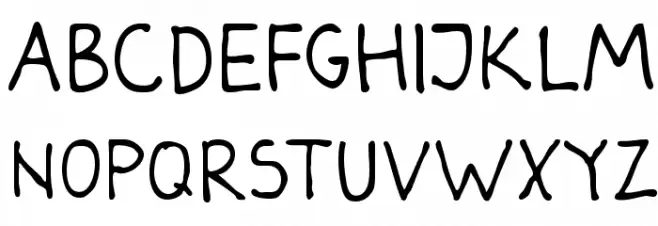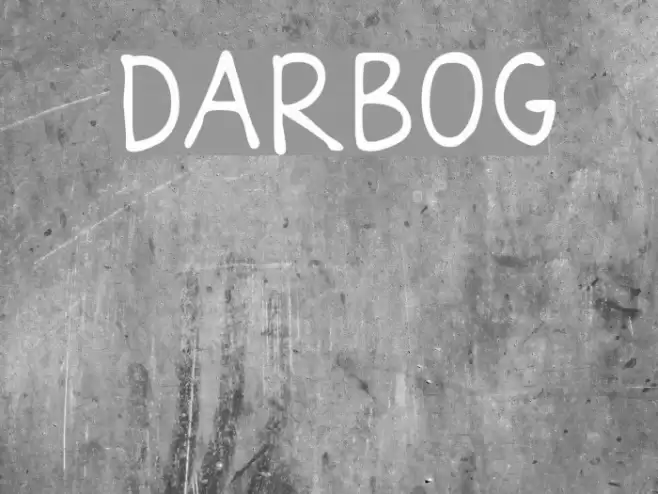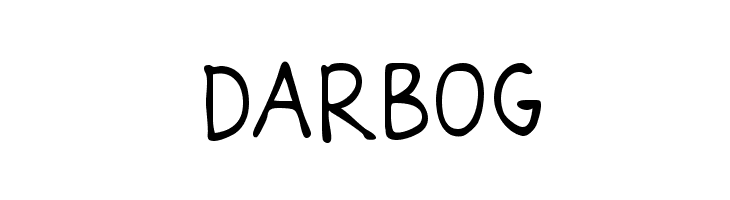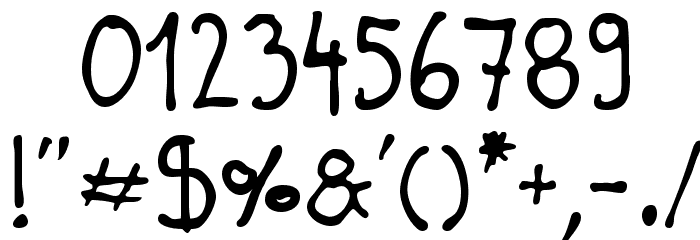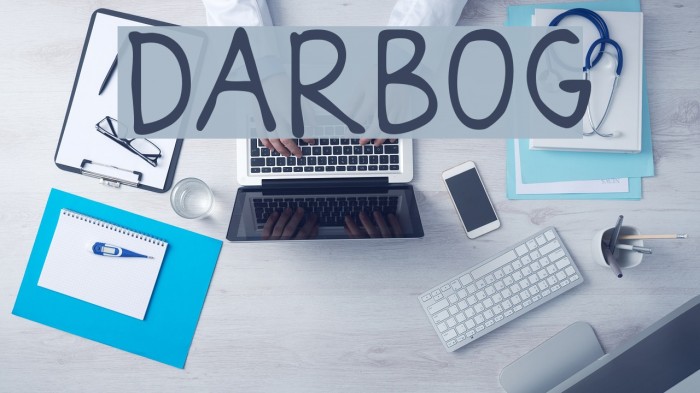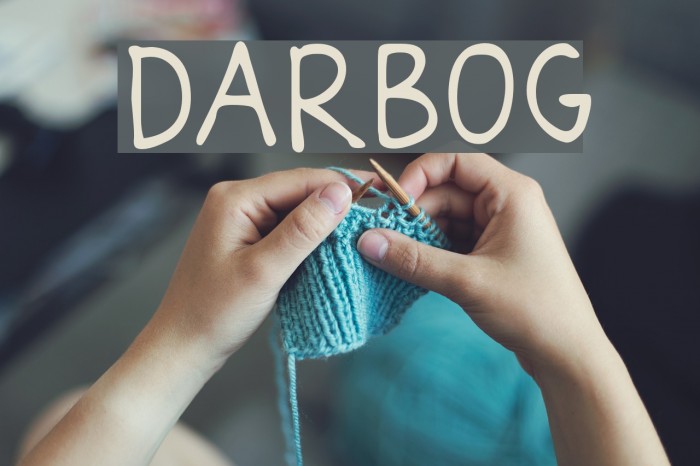
Darbog
This font features a playful and casual handwritten style, characterized by its uneven strokes and slightly irregular letterforms. The characters have a whimsical appearance, with a natural flow that mimics the spontaneity of handwriting. The uppercase and lowercase letters maintain a consistent style, with rounded edges and a friendly demeanor. The numerals and special characters follow the same informal aesthetic, making the font suitable for projects that require a personal touch. Its unique charm is ideal for creative designs that aim to convey warmth and approachability.
A playful, handwritten font with a casual and whimsical style.
- Proposed Projects: Ideal for greeting cards, children's books, casual invitations, and playful branding.
- Overall Style: Casual
- Use Case: Logos, Invitations, Creative projects